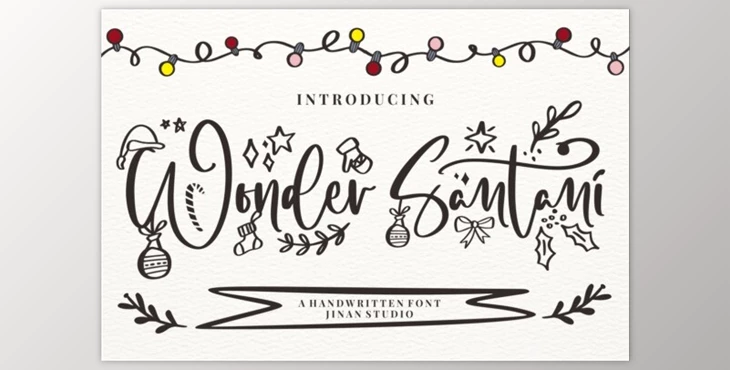
Wonder Santani Script Font: Introducing the Wonder Santani Font, a stylish, modern, and elegant handwritten script font designed to add a romantic touch to various applications, from greeting cards to headlines. With its PUA encoding, accessing all the glyphs and swashes is easy, allowing for seamless creative expression.
Experience the charm and versatility of Wonder Santani as you elevate your creations with a touch of romance and sophistication!